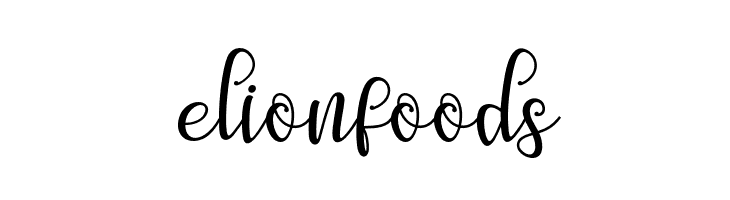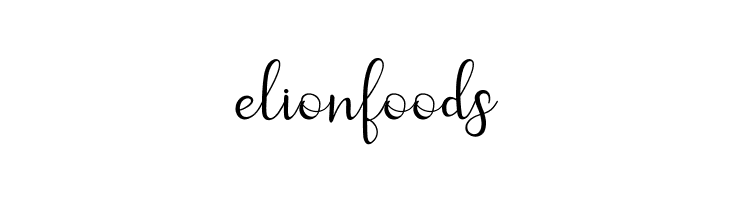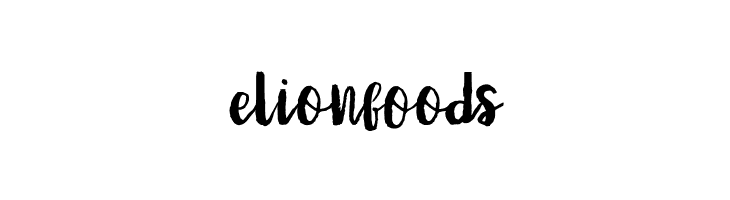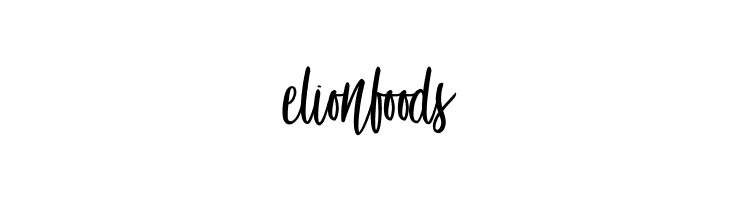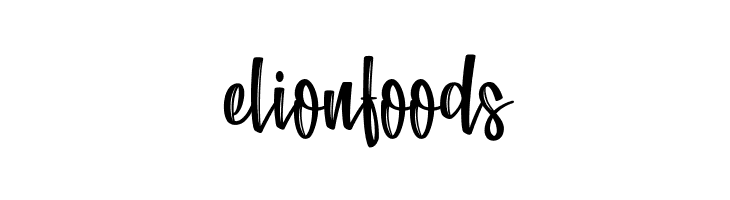
A lively and elegant script font with decorative swirls and loops.
A sophisticated, slanted script font with elegant loops and swashes.
A graceful script font with flowing, connected strokes and elegant swashes.
An elegant, flowing script font with a sophisticated cursive style.
A bold, brush-style font with a hand-drawn, expressive appearance.
A dynamic and flowing script font with elegant cursive letterforms.
A playful and elegant handwritten font with a modern touch.
A playful, handwritten font with a modern, energetic style.
An elegant script font with intricate swashes and high contrast, perfect for formal and artistic uses.
An elegant script font with ornate, flowing letterforms and decorative swashes.